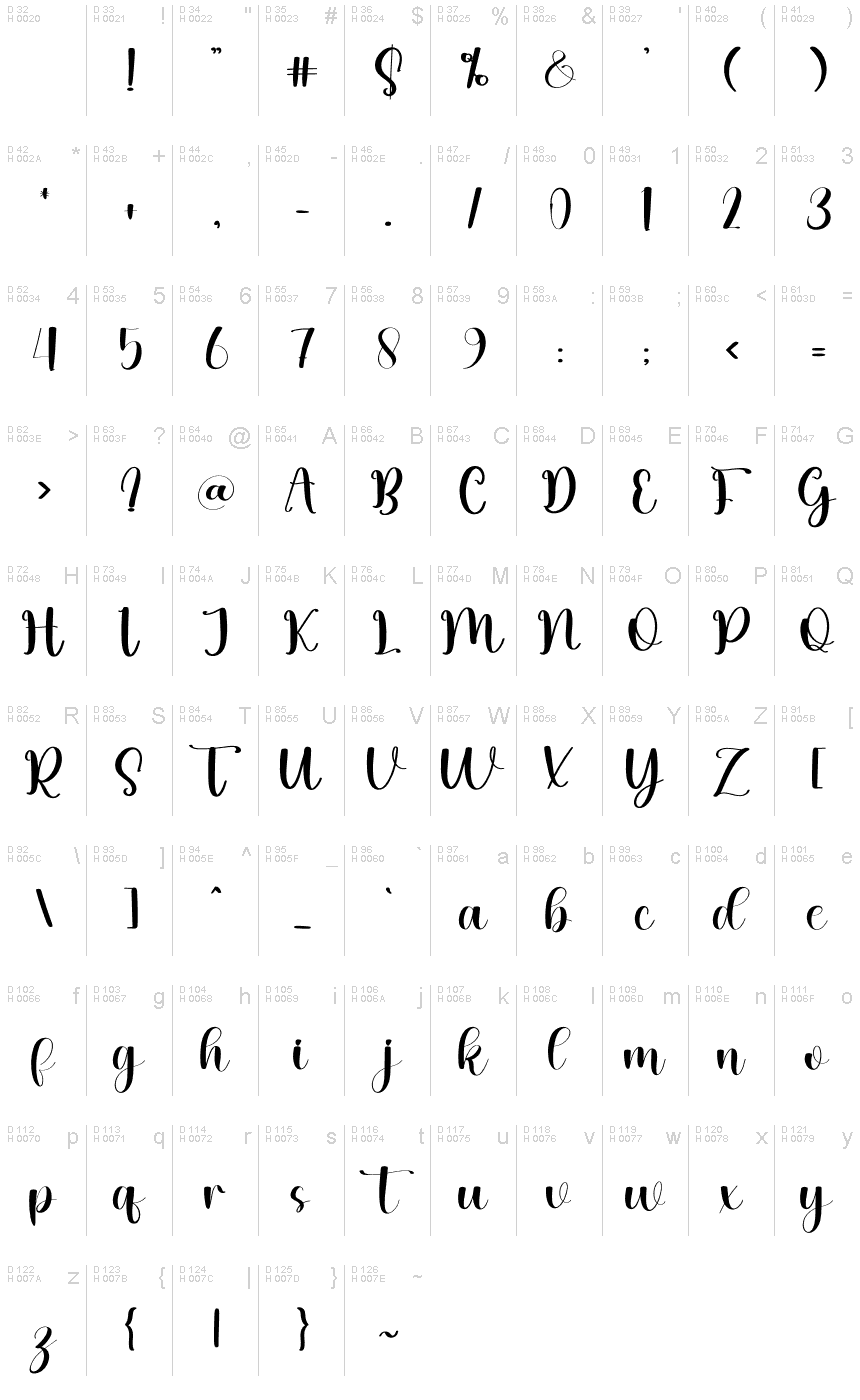
Sometime
Sometime, crafted by the talented designer Scratchones, is a captivating calligraphy font that exudes elegance and refinement. With its semi-light weight and semi-condensed width, Sometime adds a touch of sophistication to any project.
Perfect for wedding invitations, luxury branding, or high-end fashion magazines, this font gracefully blends modern aesthetics with timeless charm. Enhance your designs with Sometime's fluid strokes and exquisite curves, immersing your audience in an atmosphere of beauty and grace.
Let this enchanting typeface elevate your creations to new heights of visual delight.